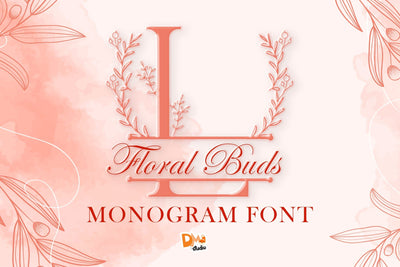
Floral Buds Monogram
Floral Buds Monogram – A Delicate Bloom-Inspired Initial Font
Floral Buds Monogram is a graceful and elegant display font that intertwines botanical charm with refined letterforms. Each uppercase initial is adorned with gentle floral buds, making it perfect for nature-themed designs, wedding stationery, branding, and handmade product packaging. Whether you're crafting personalized gifts or enhancing logos with a floral flair, this font brings soft sophistication to your project.
Floral-Inspired Monogram Letters: Each uppercase letter is beautifully accented with budding flowers, offering a subtle, organic touch.
Perfect for Elegant Projects: Ideal for invitations, logos, product tags, scrapbooking, and seasonal crafts.
Botanical & Stylish Aesthetic: Harmonizes delicate florals with stylish serif forms for a timeless look.
Multilingual Support: Includes standard uppercase characters, numerals, punctuation, and language extensions.